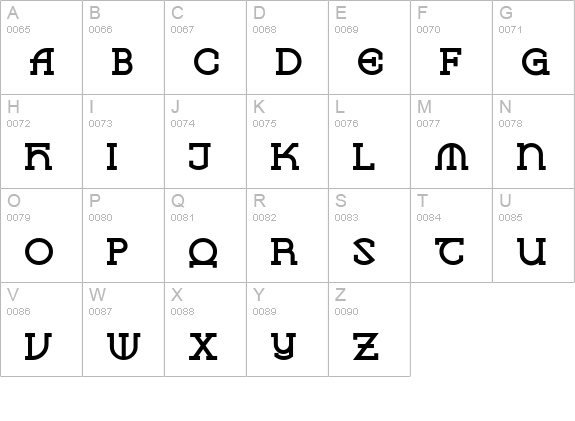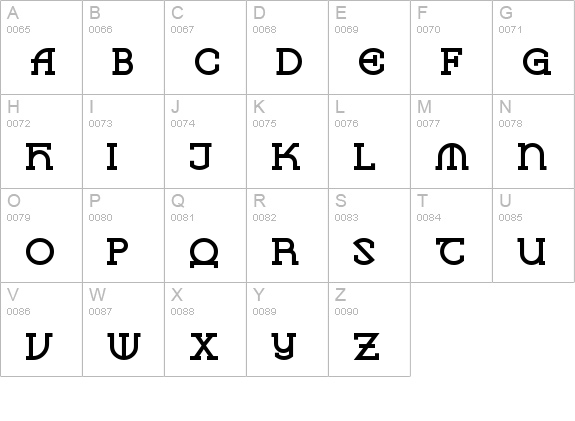
VlaanderenSquare Font Details
VlaanderenSquare is a modern and stylish font that combines clean lines with a touch of elegance. Its geometric shapes and squared-off corners give it a contemporary and edgy look, making it perfect for a wide range of design projects. This versatile font is not only visually striking but also highly legible, making it ideal for both headlines and body text. Its unique character set includes a full range of uppercase and lowercase letters, numerals, punctuation marks, and special characters, allowing you to create stunning and cohesive designs. One of the most appealing aspects of VlaanderenSquare is that it is free to download. Yes, you read that right - this incredible font is freely available at FontsMarket.com. Whether you're a professional designer or a hobbyist looking to add a stylish touch to your projects, you can now access this font without any cost attached. Downloading VlaanderenSquare is a breeze. Simply visit FontsMarket.com, search for VlaanderenSquare in the font library, and click the download button. Once you have the font file, install it on your computer, and you're ready to unleash your creativity. Whether you're designing a modern website, creating eye-catching posters, or crafting professional business materials, VlaanderenSquare is the perfect companion. Its bold and unique style will make your work stand out from the crowd, leaving a lasting impression on your audience. So why wait? Take advantage of this amazing opportunity to download VlaanderenSquare for free at FontsMarket.com and elevate your designs to the next level.